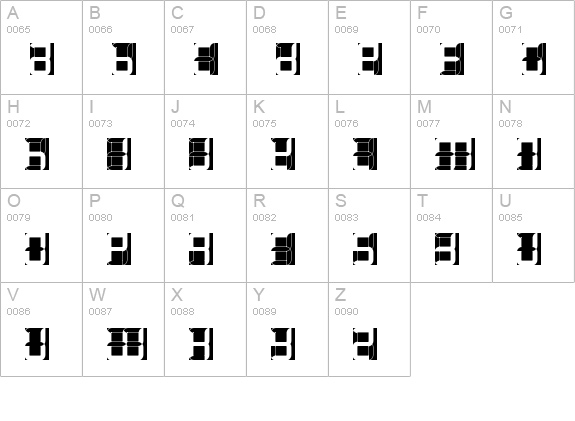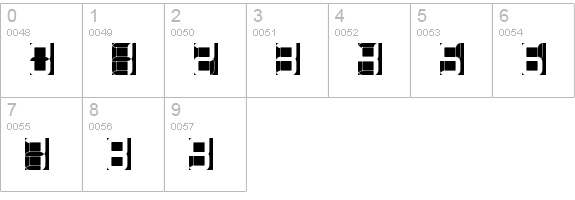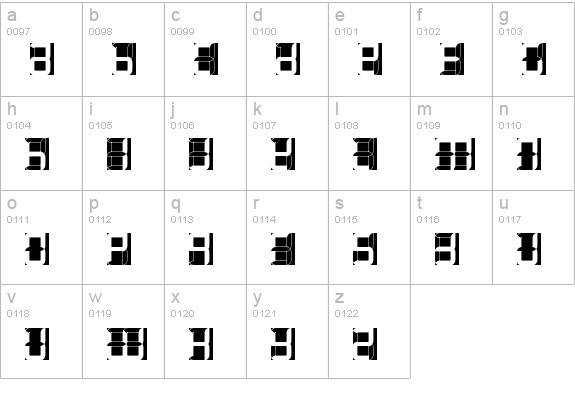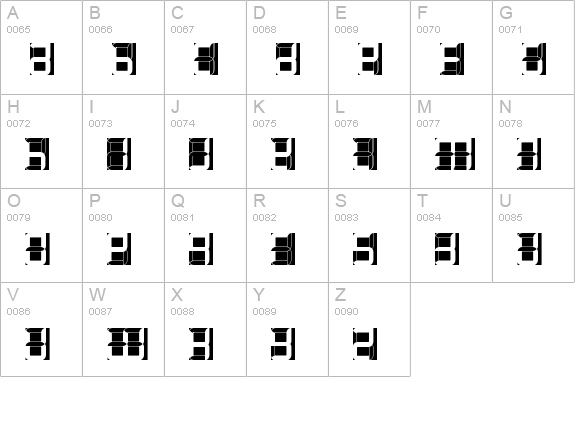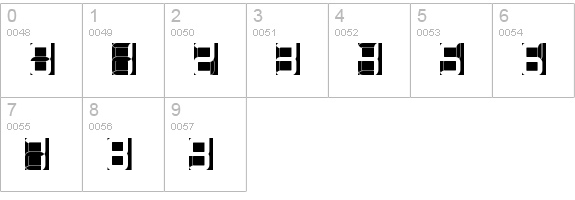
Introducing the extraordinary Letters Laughing Dissection and Destruction font, a captivating typeface that brings a unique blend of creativity and edginess to your designs. This font is a true representation of the unconventional, perfect for those seeking to make a bold statement. With its intricate detailing and playful elements, Letters Laughing Dissection and Destruction font effortlessly captures attention and sparks intrigue. Each letter is meticulously crafted with a hint of distortion, creating a visually striking aesthetic that pushes boundaries and breaks free from the conventional norms of typography. This font boasts a wide range of characters, including uppercase and lowercase letters, numbers, and punctuation marks, allowing you to unleash your creativity and craft captivating designs. Whether you're designing eye-catching posters, attention-grabbing logos, or unique social media graphics, Letters Laughing Dissection and Destruction font will undoubtedly elevate your projects to new heights. But here's the best part – Letters Laughing Dissection and Destruction font is available for free download exclusively at FontsMarket.com. Yes, you read that right! This remarkable typeface can be yours without spending a dime, making it accessible to designers, artists, and enthusiasts alike. So, why wait? Unlock the potential of your designs and let them speak volumes with Letters Laughing Dissection and Destruction font. Download it now for free at FontsMarket.com and embark on a creative journey like no other.